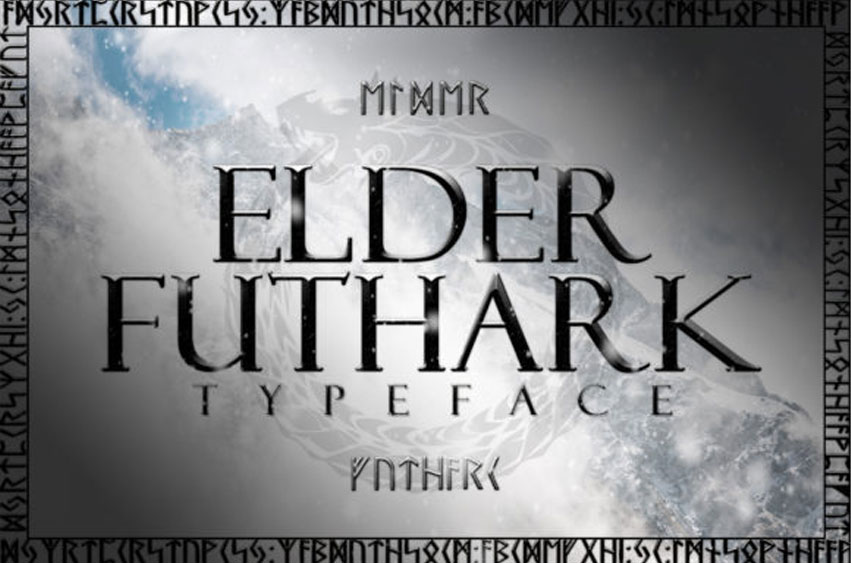
Elder Futhark Font
Elder Futhark Font typeface is a unique font based on the oldest form of the runic alphabet. It was a writing system used by Germanic tribes. Runic inscriptions are found on artifacts, including jewelry, amulets, tools, weapons, and, of course, runestones, from the 2nd to the 8th centuries. This typeface is perfect for logos, monograms, titles, and posters.
The typeface is not a translator as such, but based on my research, I have made these runes match the Roman alphabet with quite some accuracy.